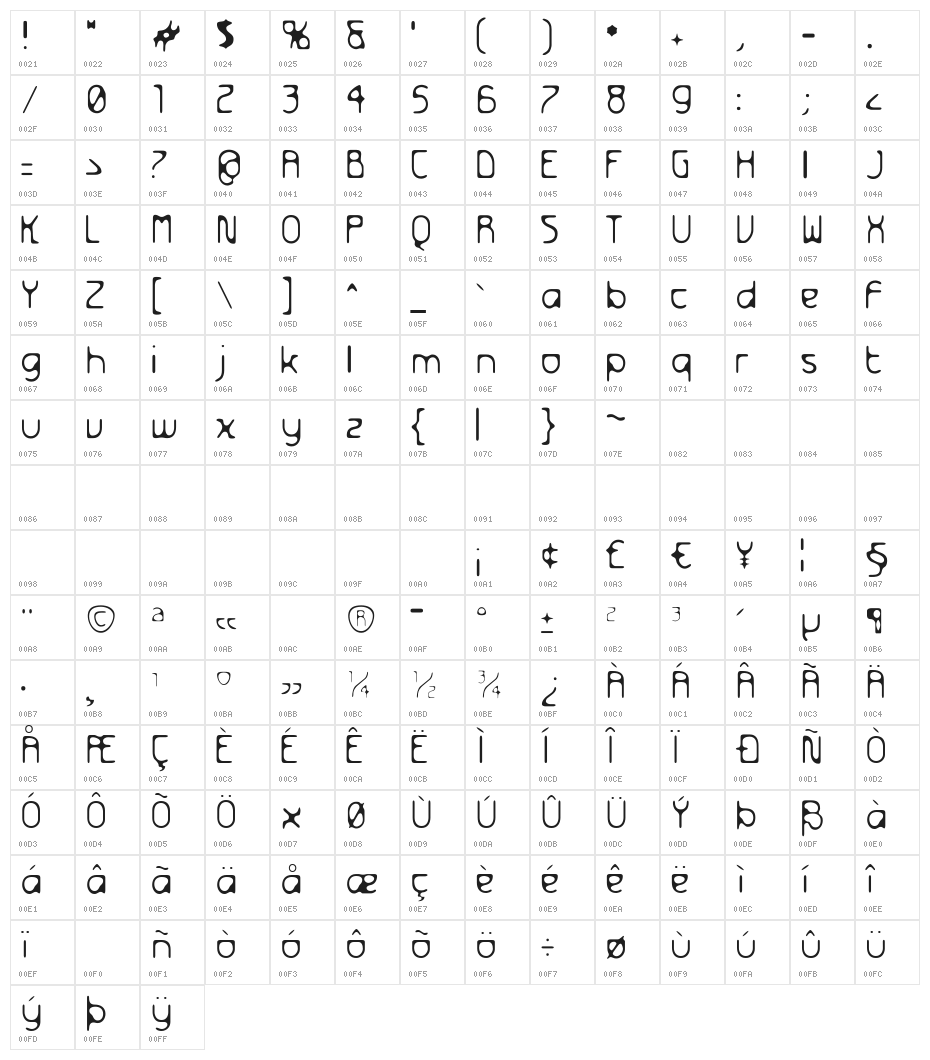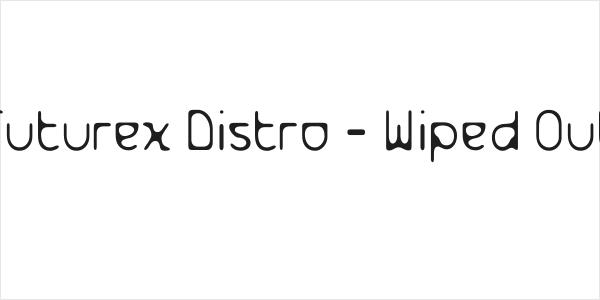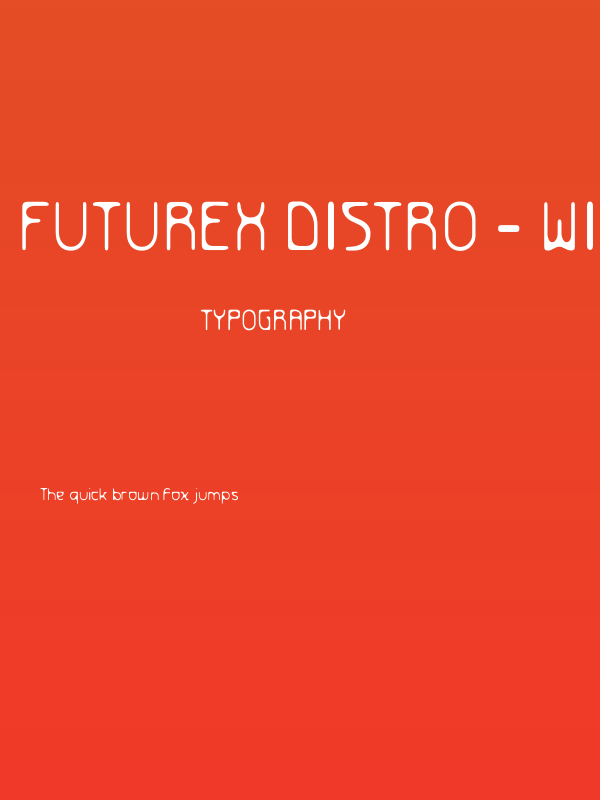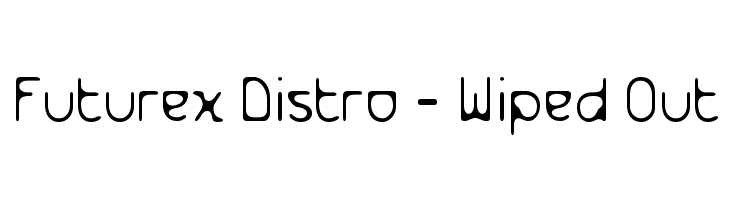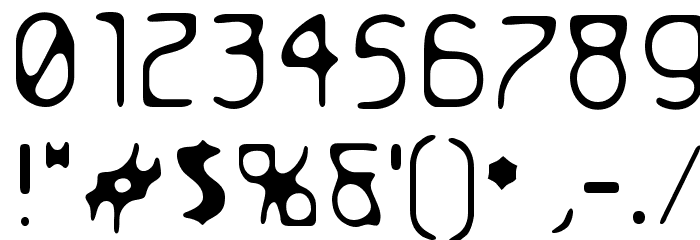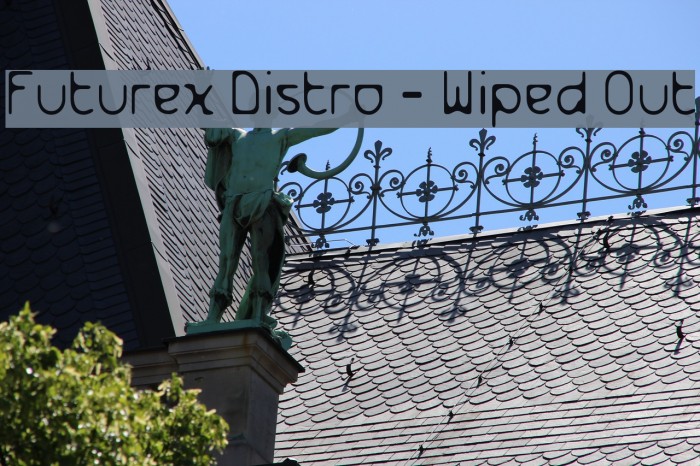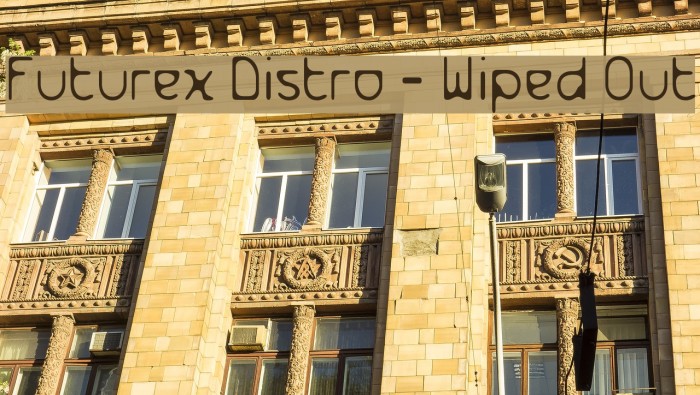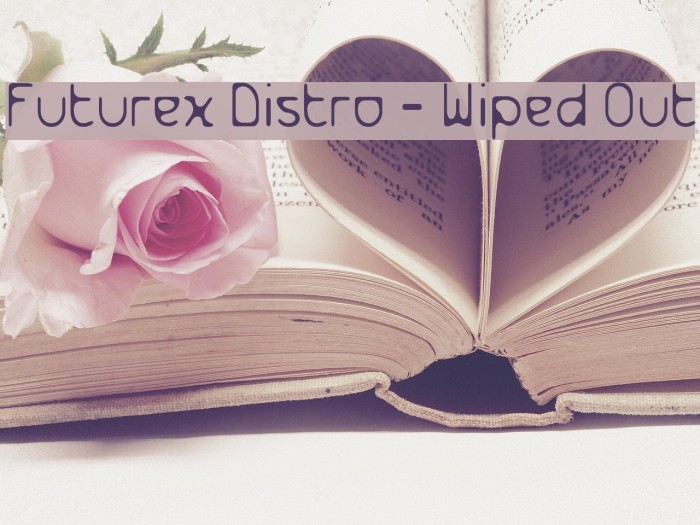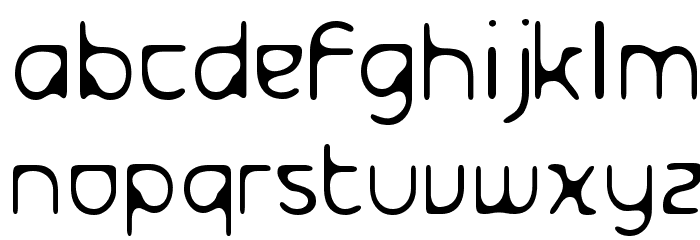
Futurex Distro - Wiped Out Font
Futurex Distro - Wiped Out Description
This font features a unique and playful design with rounded edges and a slightly irregular structure, giving it a whimsical and modern appearance. The characters are bold and have a consistent stroke width, which contributes to its readability despite the unconventional shapes. The uppercase and lowercase letters maintain a cohesive style, while the numerals and special characters add a quirky touch with their distinctive forms. This font is well-suited for creative projects that require a fun and engaging visual element.
| Proposed Projects | Ideal for children's books, playful branding, creative posters, and unique packaging designs. |